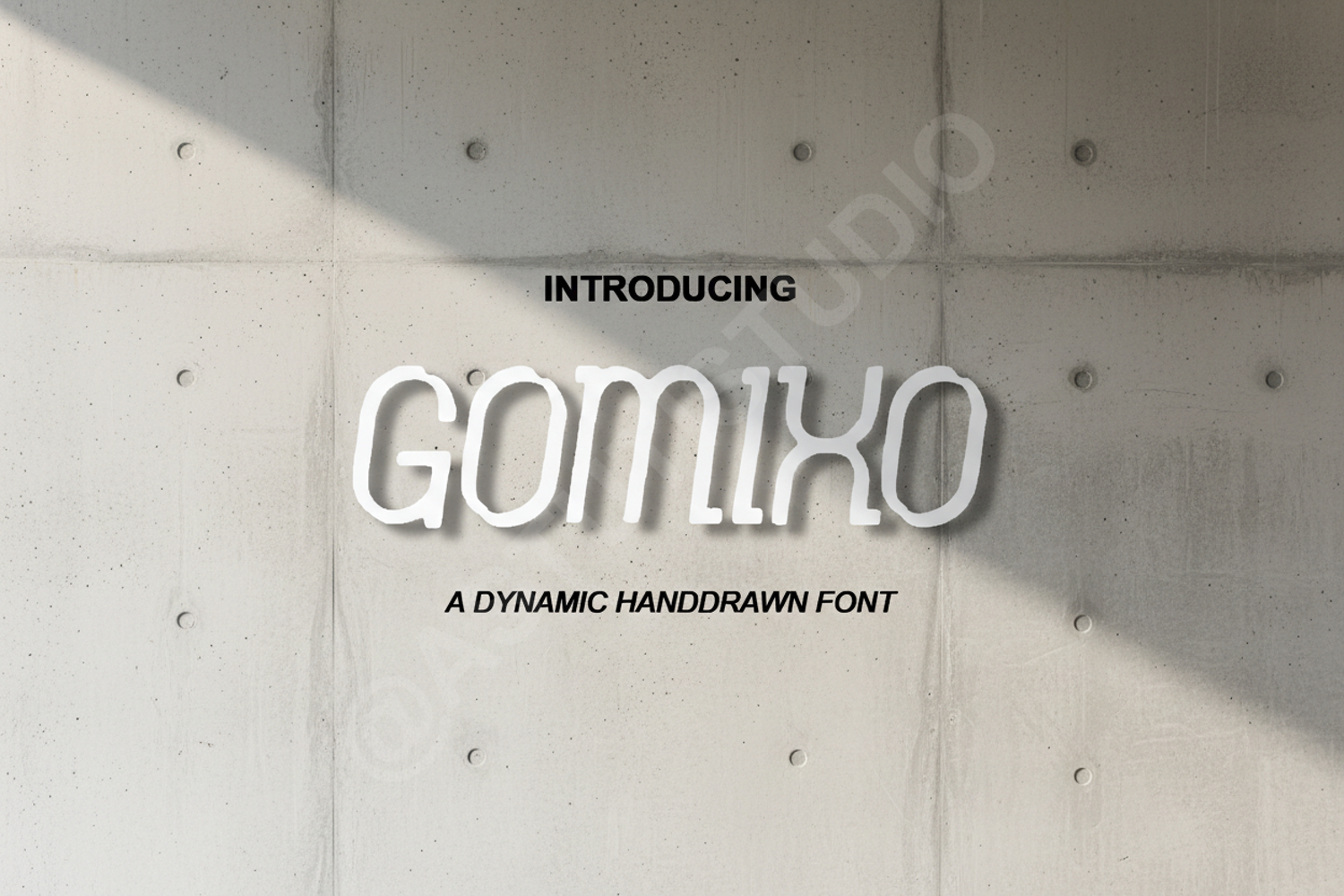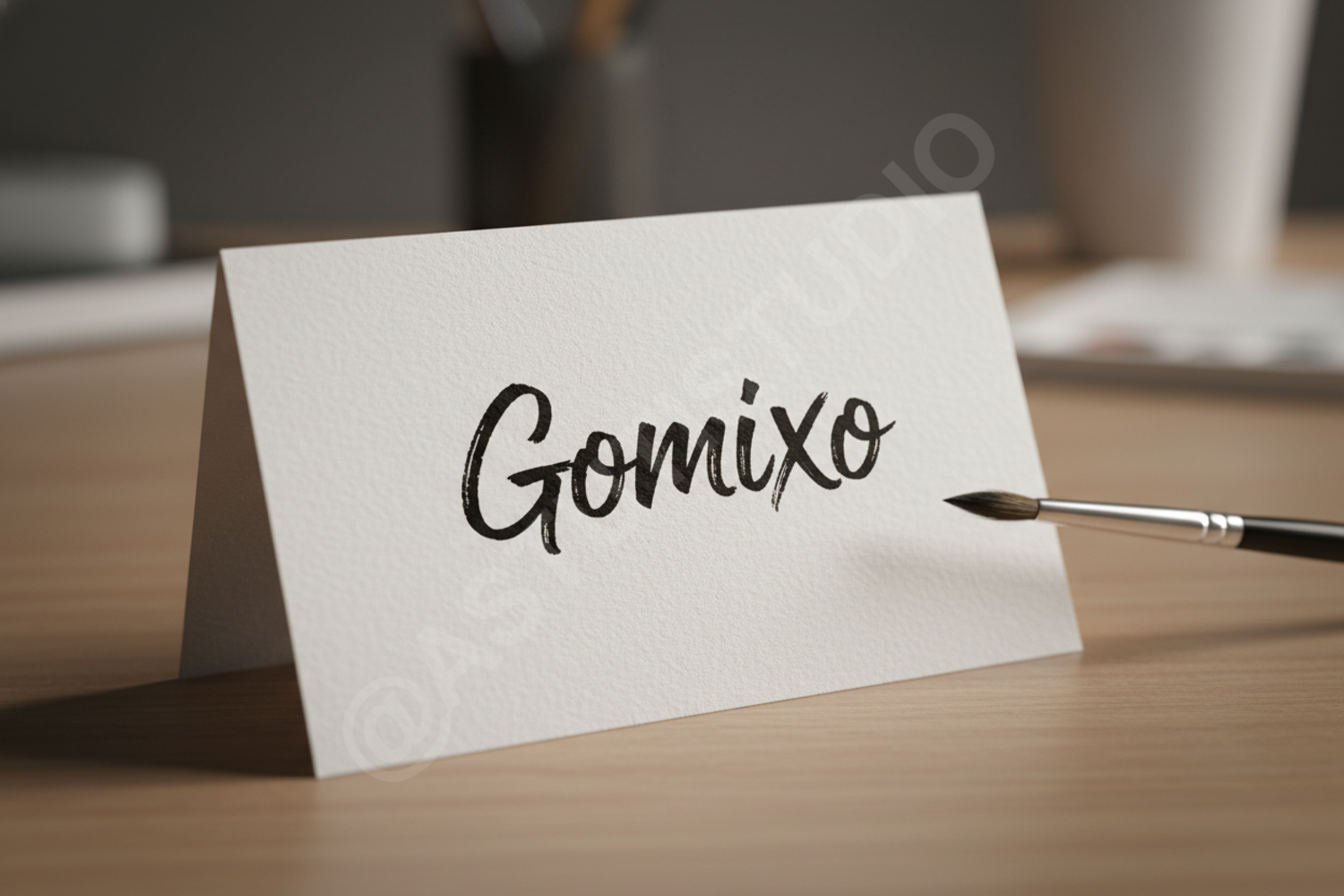
Gomixo - Modern Geometric Sans Serif Typeface
Gomixo
Elevate your creative projects with Gomixo, a premium geometric sans serif font designed for modern aesthetics. Gomixo combines clean lines with a sophisticated touch, making it a versatile choice for designers who demand both style and readability. Whether you are building a brand identity or designing a sleek website, Gomixo provides the professional edge your work deserves.